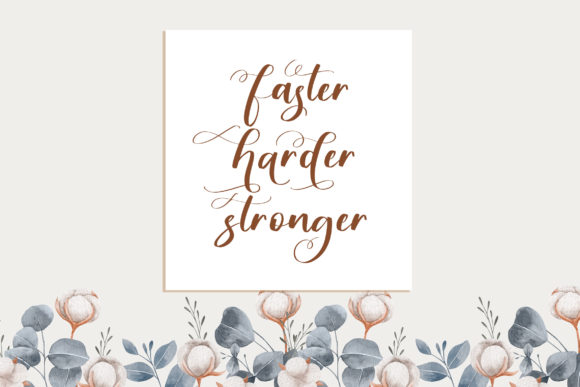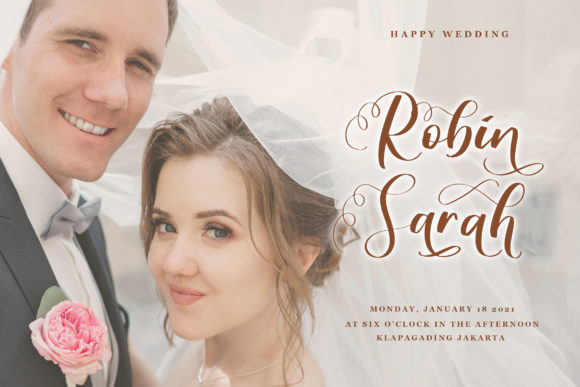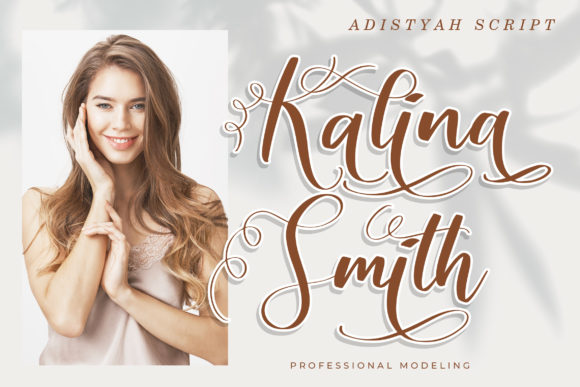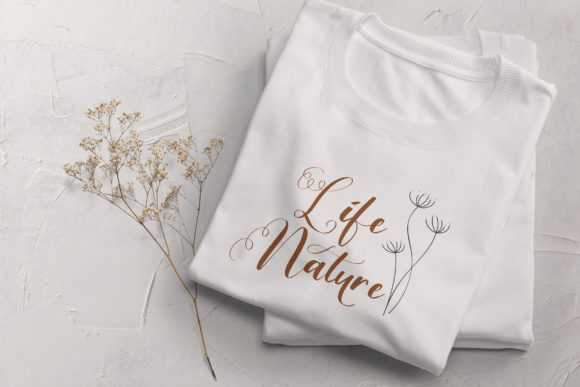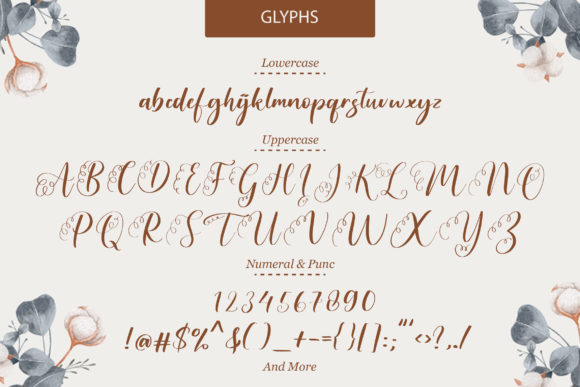
Introducing Adistyah Font: Elevate Your Designs with Delicate Flair
Are you on the hunt for a font that adds a touch of elegance and freshness to your projects? Look no further than Adistyah Font. This beautiful, handwritten font is designed to bring a delicate yet vibrant feel to your designs, making it perfect for crafters, designers, and anyone looking to add a personal touch to their work.
What Makes Adistyah Font Special?
Adistyah Font stands out from the crowd for several reasons. First and foremost, its delicate and fresh appearance makes it incredibly versatile. Whether you’re working on a wedding invitation, a branding project, or a craft tutorial, Adistyah can adapt to your needs, adding a sophisticated and personal touch to your work.
Another significant advantage of Adistyah Font is its PUA (Private Use Area) encoding. This means that the font comes with a wide range of glyphs and swashes at your fingertips, allowing for extensive customization and creativity. With PUA encoding, accessing these additional characters is straightforward, enabling you to experiment with different combinations to find the perfect look for your project.
Key Features of Adistyah Font
- Delicate and Fresh Design: Adistyah boasts a beautiful, handwritten design that adds an elegant touch to any project.
- PUA Encoded: Enjoy easy access to all glyphs and swashes, giving you the flexibility to customize your text.
- Versatile: Suitable for a wide range of projects, from invitations and branding to crafting and digital content.
- User-Friendly: Designed to be easy to use, even for those with little design experience.
Using Adistyah Font in Your Projects
Adistyah Font can elevate a variety of projects. Here are a few ideas to get you started:
- Wedding Invitations and Stationery: Add a touch of romance and sophistication to your wedding invitations, save-the-dates, and other stationery.
- Branding and Packaging: Use Adistyah to create unique and memorable branding elements, such as logos, business cards, and product packaging.
- Crafting and DIY Projects: Perfect for crafters, Adistyah can be used in tutorials, patterns, and labels for your handmade goods.
- Digital Content: Enhance your blog posts, social media graphics, and digital products with a personal and elegant touch.
Tips for Getting the Most Out of Adistyah Font
To truly make the most of Adistyah Font, don’t be afraid to experiment. Here are a few tips:
- Mix and Match: Combine Adistyah with other fonts for a unique look. Its delicate nature pairs well with both bold and simple fonts.
- Utilize Swashes: Take advantage of the PUA-encoded swashes to add flair to your text. Swashes can be used to connect letters, add tails to words, or simply as decorative elements.
- Play with Sizes: Don’t be afraid to vary the font size to create visual interest. Larger sizes can be used for headings, while smaller sizes are perfect for body text.
Adistyah Font is a versatile and beautiful addition to any designer’s toolkit. Its delicate yet fresh appearance, combined with the ease of use provided by PUA encoding, makes it an excellent choice for a wide range of projects. Whether you’re a professional designer or a crafter looking to add a personal touch to your work, Adistyah Font is sure to exceed your expectations. So why wait? Add Adistyah to your collection today and discover the difference it can make in your designs.